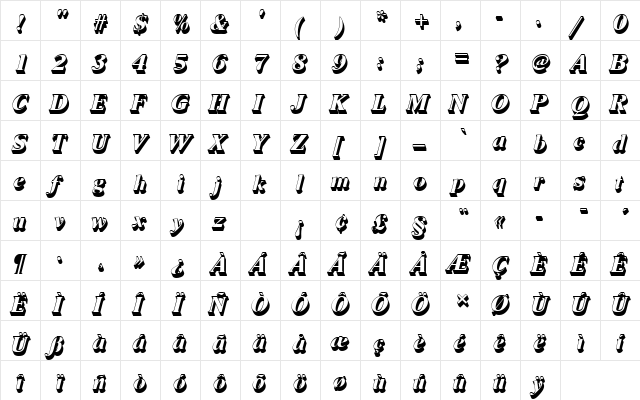
NimbusRomDExtBolItaSh1 Regular
Design Context for NimbusRomDExtBolItaSh1 Typeface
NimbusRomDExtBolItaSh1 takes a measured approach to typography — its balanced proportions and neutral character make it a reliable workhorse for both digital and print work.